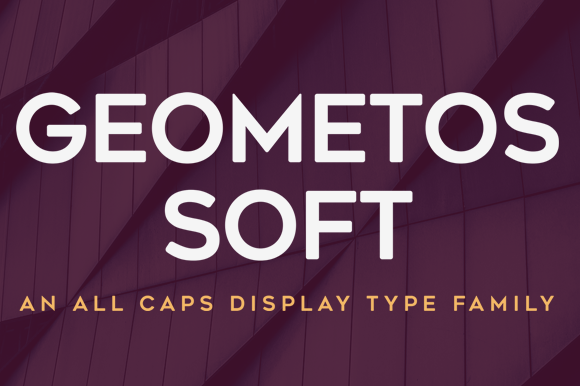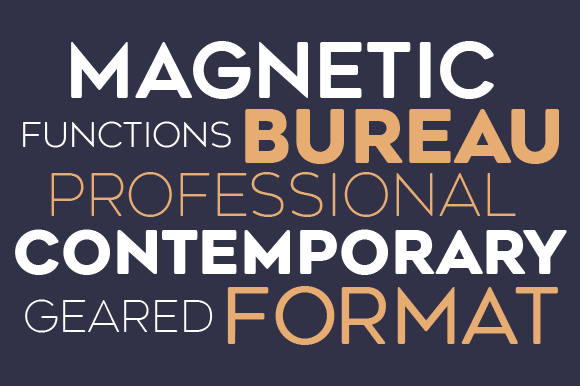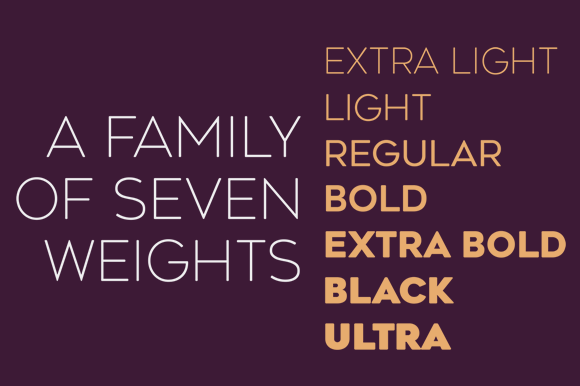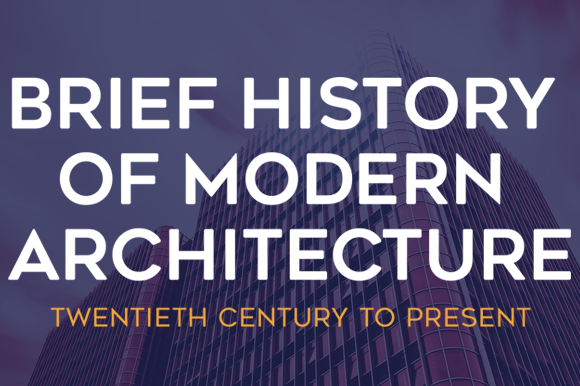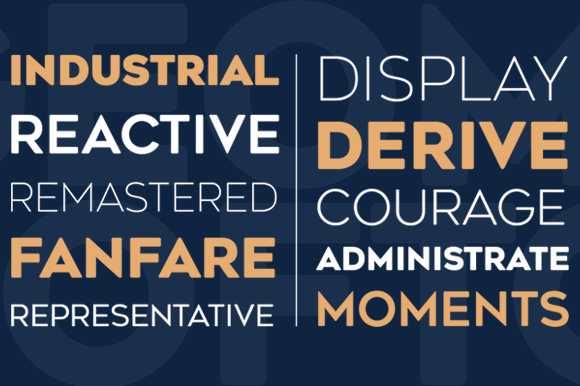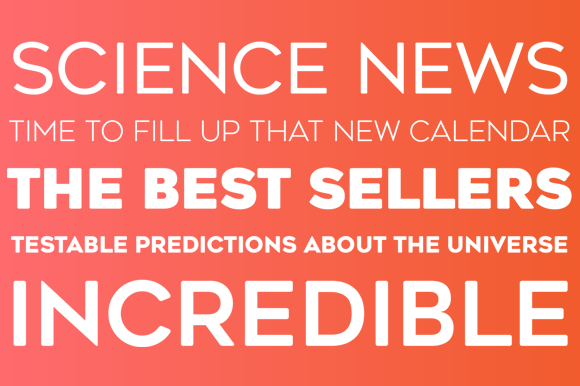
Introducing the New Era of Typography: Geometos Soft Font
Enter the Geometos Soft Font, the latest iteration of the Geometos typeface. This stunning sans serif font boasts strong, bold letters, but with a twist – soft rounded edges that add a touch of warmth and sophistication. Designed to provide versatility and adaptability, the Geometos Soft Font is the perfect addition to any designer’s toolkit, offering endless possibilities for creative expression.
Whether you’re working on a branding project, a marketing campaign, or a digital product, the Geometos Soft Font is sure to elevate your designs and leave a lasting impression. With its unique blend of strength and subtlety, this font is set to become a game-changer in the world of typography.
- Unique Characteristics: Geometos Soft Font features a unique blend of geometric and organic elements, giving it a distinctive and eye-catching appearance.
- Font Weight: The font includes multiple weights, from Light to Bold, allowing designers to create a range of visual effects and emphasize specific text or headings.
Designer Review: Geometos Soft Font
I recently had the chance to work with Geometos Soft Font, and I must say, it’s an interesting addition to the world of typography. ✨ One of the things that works well in this font is its versatility. It’s suitable for a wide range of designs, from digital products to print materials. The soft curves and gentle lines give it a friendly and approachable feel.
Another advantage of Geometos Soft Font is its legibility. ✨ The font is easy to read, even at smaller sizes, making it perfect for body text and captions. The font also supports a wide range of languages, which is a significant plus for designers working on international projects.
While Geometos Soft Font has its strengths, there are a few areas where it falls short. ⚠️ The font lacks a strong personality, which can make it blend in with other designs. Additionally, the font’s softness can sometimes make it difficult to read at very small sizes.
- Lack of distinct personality
- Difficulty reading at very small sizes
Overall, I think Geometos Soft Font is a solid choice for designers looking for a friendly and approachable font. While it may not be the most exciting font, it’s reliable and easy to work with. With a little creativity, it can add a touch of warmth to even the most mundane designs.
The Geometos Soft Font is ideal for creating modern and minimalist designs, such as:
- Brand identities and logos
- Infographics and data visualizations
- Brochures and marketing materials
- Web design and UI elements